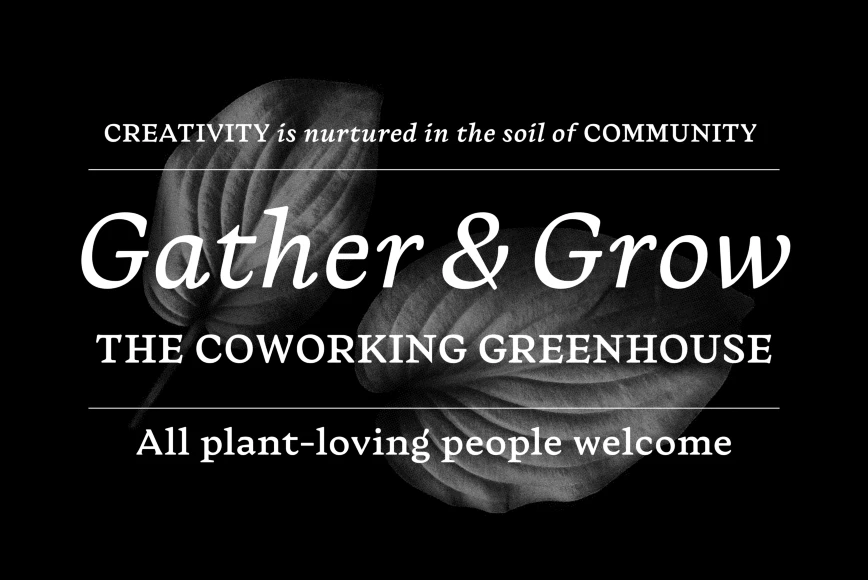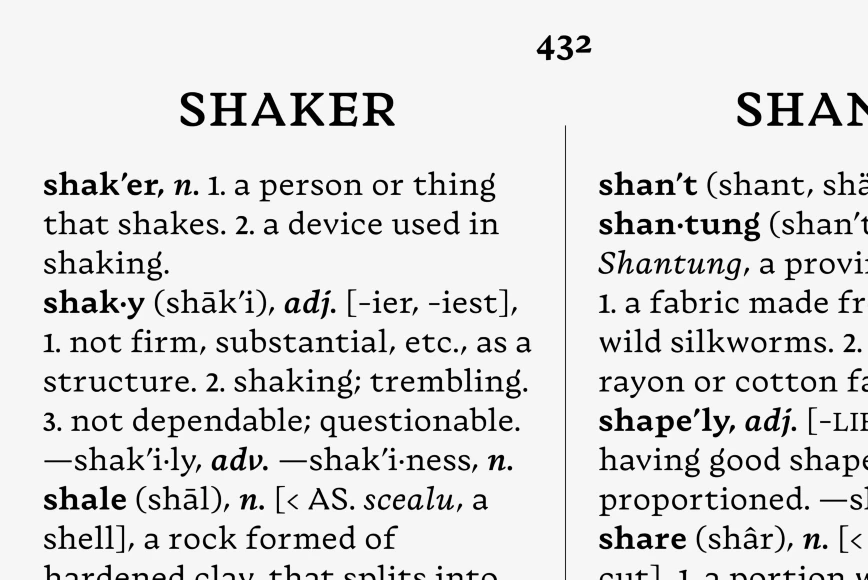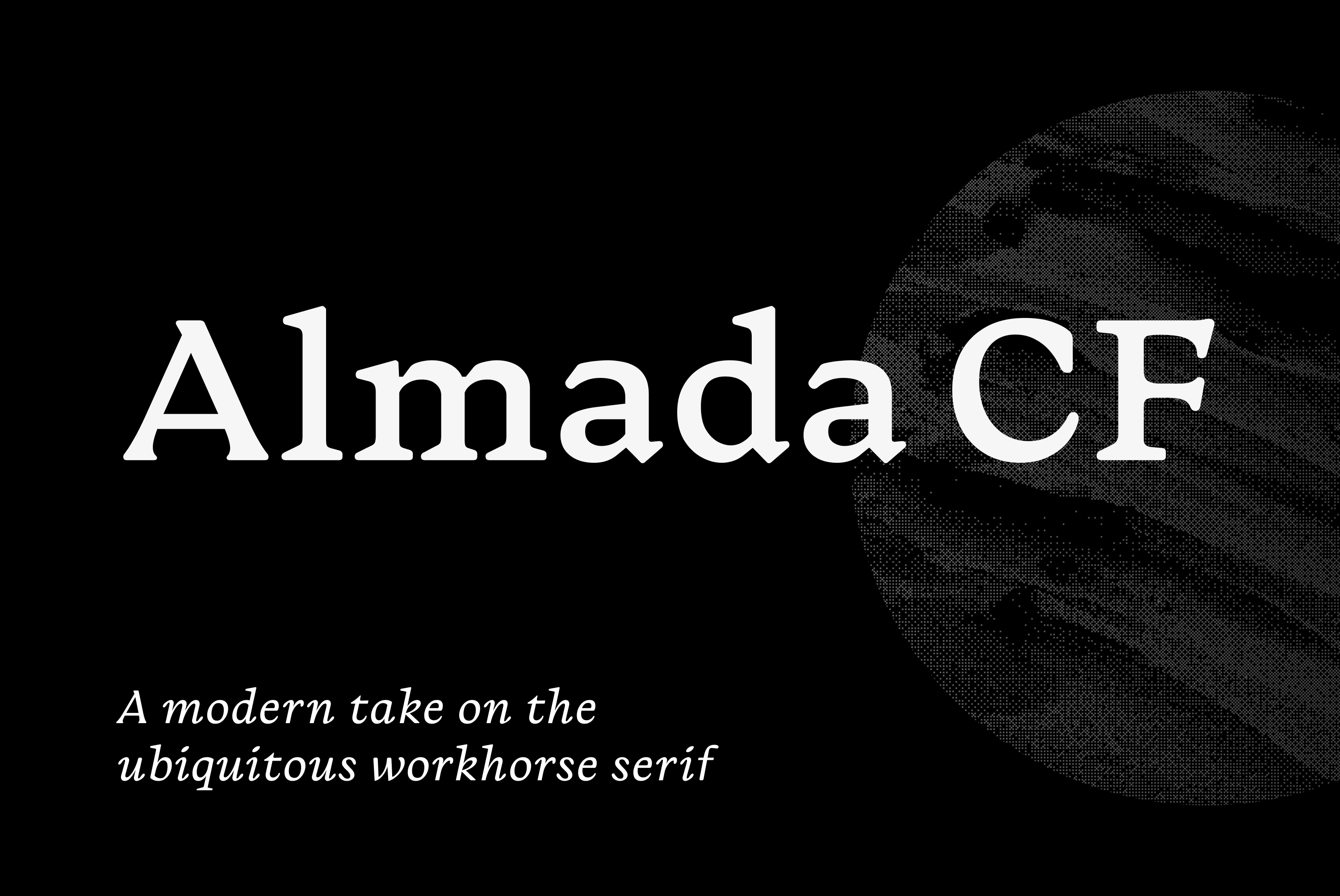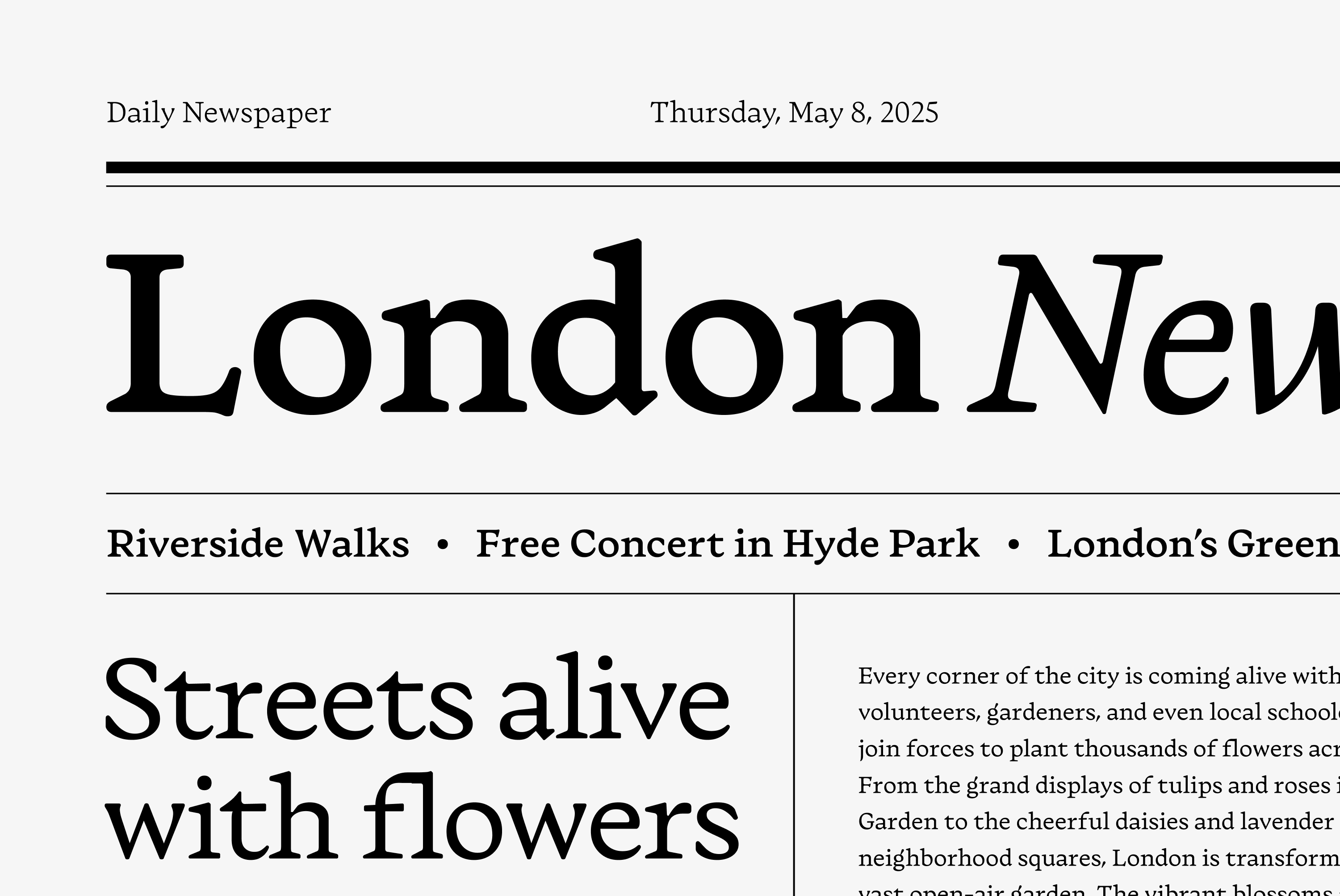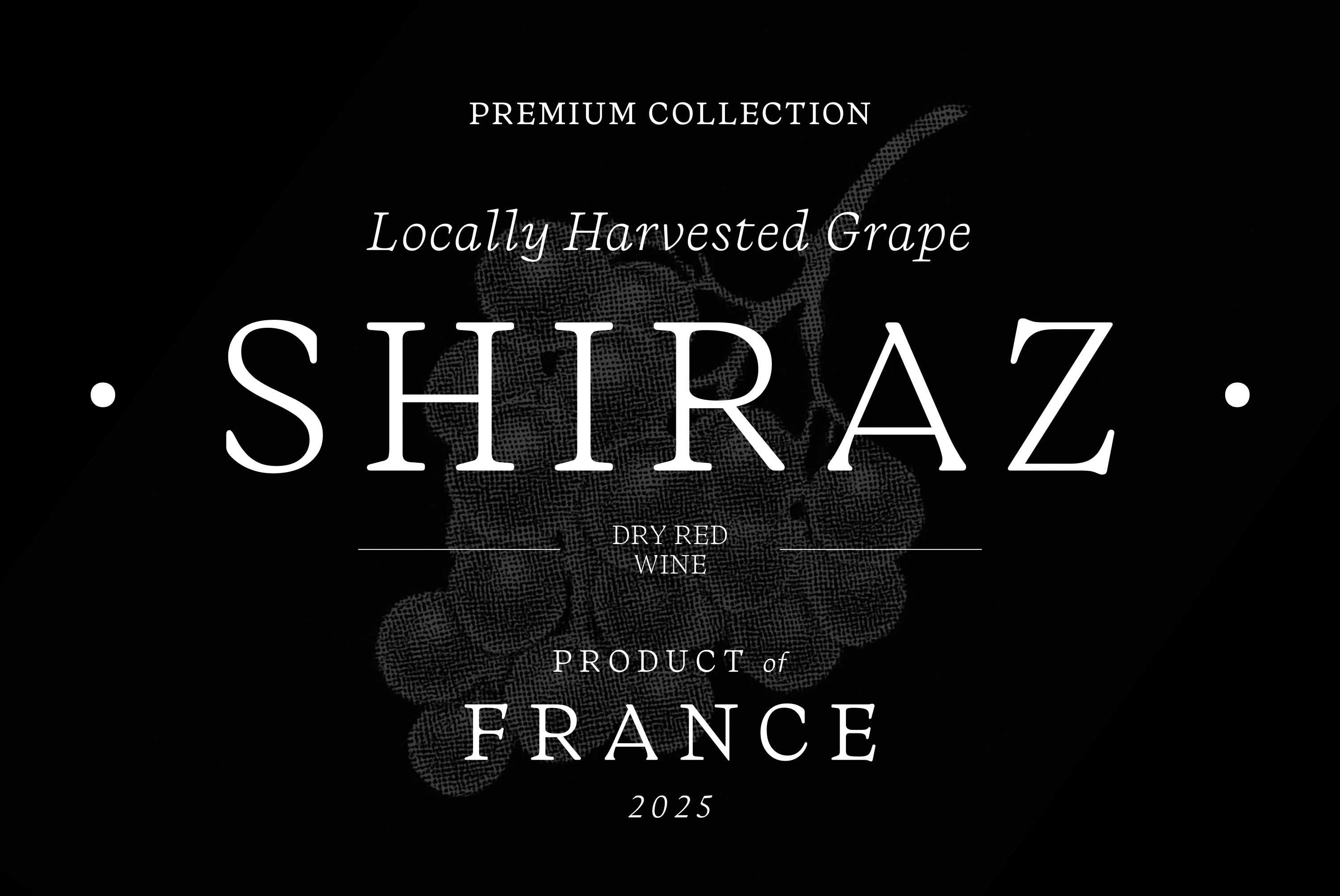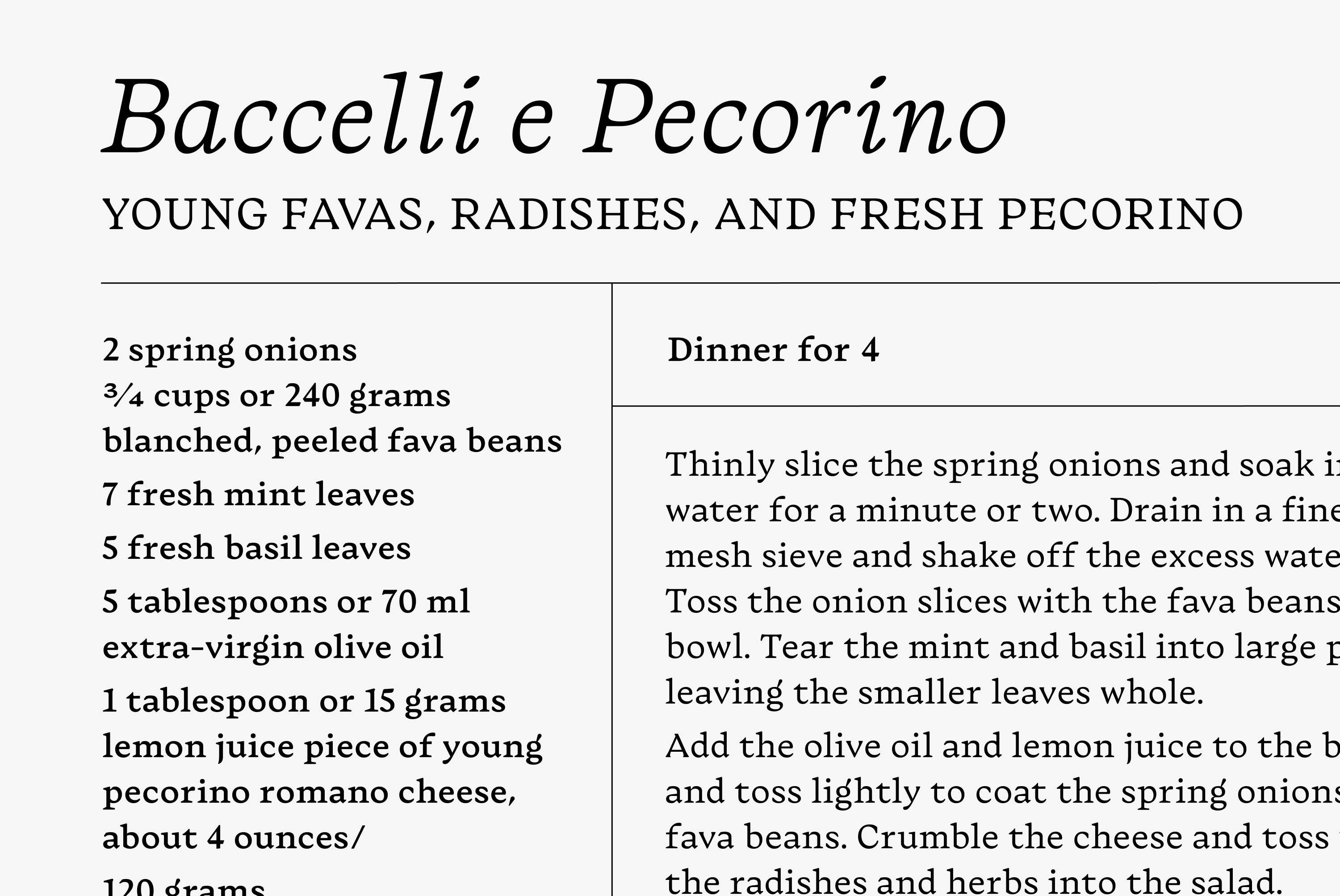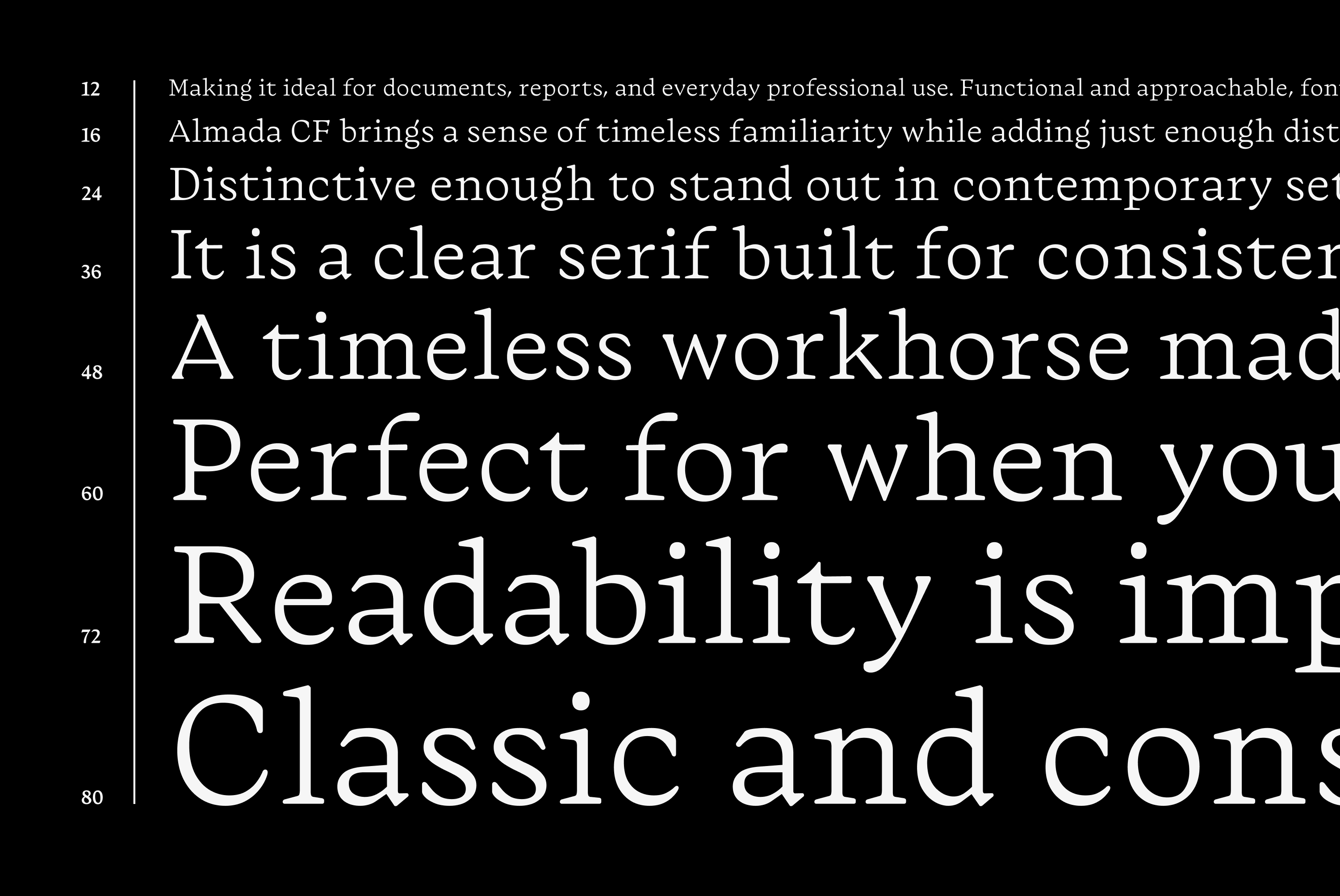
Almada
By Connary Fagen
Almada CF is a dependable, text-focused serif font family. It’s a stylish, modern take on ubiquitous workhorse serifs found in offices around the 1970s. Carefully tuned spacing and long, purposeful serifs ground the text, providing stability for extended reading, while unexpected details create an engaging rhythm at display sizes. Supporting Cyrillic, Greek, and Latin scripts, and offered from Extra Light to Extra Bold with italics and variable fonts. Almada CF is ready to work!